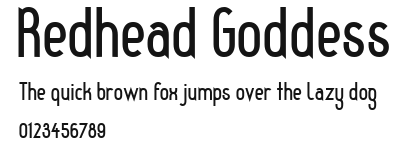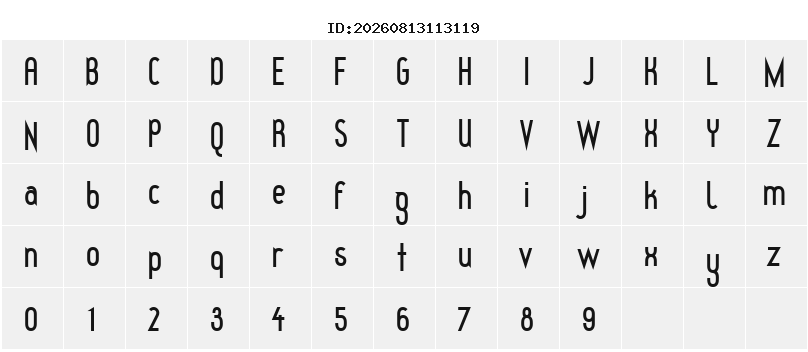
Redhead Goddess Preview
• Font Name: Redhead Goddess
• Font ID: Macromedia Fontographer 4.1 Redhead Goddess Bold
• Full Font Name: Redhead Goddess Bold
About Redhead Goddess.ttf
Redhead Goddess.ttf is a modern, elegant sans-serif font designed for ultimate readability and visual harmony. Perfect for branding, headlines, web design, and print materials.